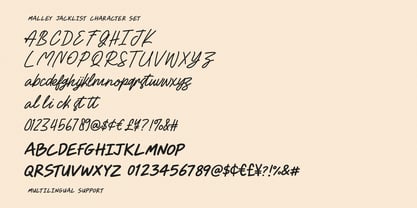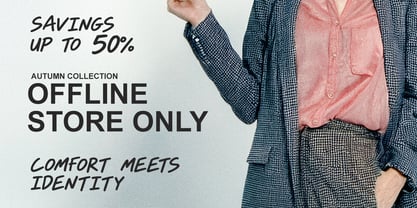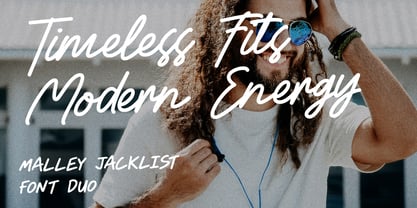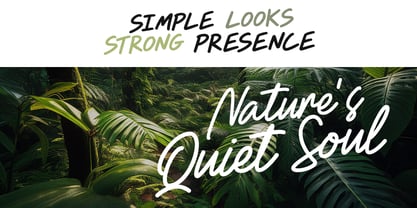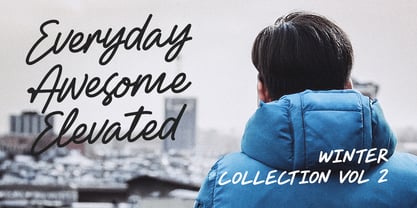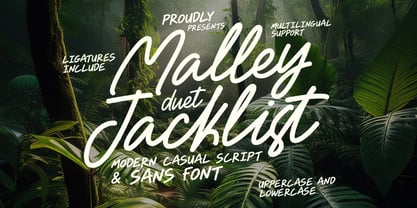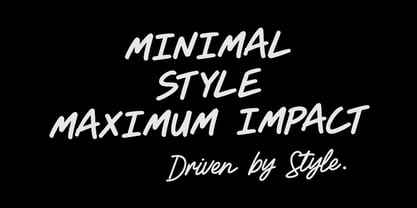
Malley Jacklist
by Maulana Creative
The Malley Jacklist Font Family was designed by Gilang Maulana and published by Maulana Creative. Malley Jacklist contains 2 styles and family package options. More about this family
Malley Jacklist is a stylish font duo featuring a modern casual script paired with a bold marker companion. Designed with smooth, natural strokes and relaxed handwriting aesthetics, this typeface brings an authentic, energetic touch to any creative project. Complete with uppercase, lowercase, contextual ligatures, and multilingual support, it offers incredible versatility and seamless readability across various digital and display mediums.
This font combination is ideal for crafting eye-catching logos, branding materials, social media graphics, quote posters, package designs, and editorial layouts. The harmonious contrast between the expressive cursive script and the clean marker style allows designers to create visually compelling typography effortlessly. Elevate modern design concepts with the natural charm and dynamic style of Malley Jacklist.
Designers: Gilang Maulana
Foundry: Maulana Creative